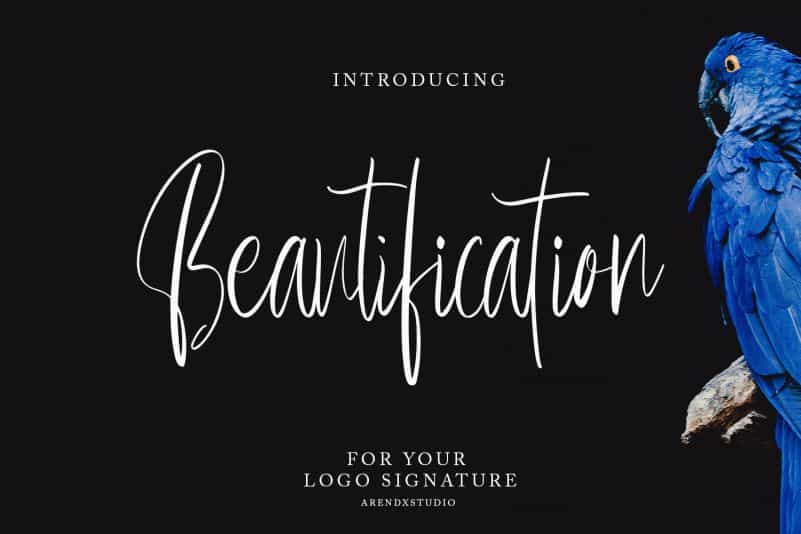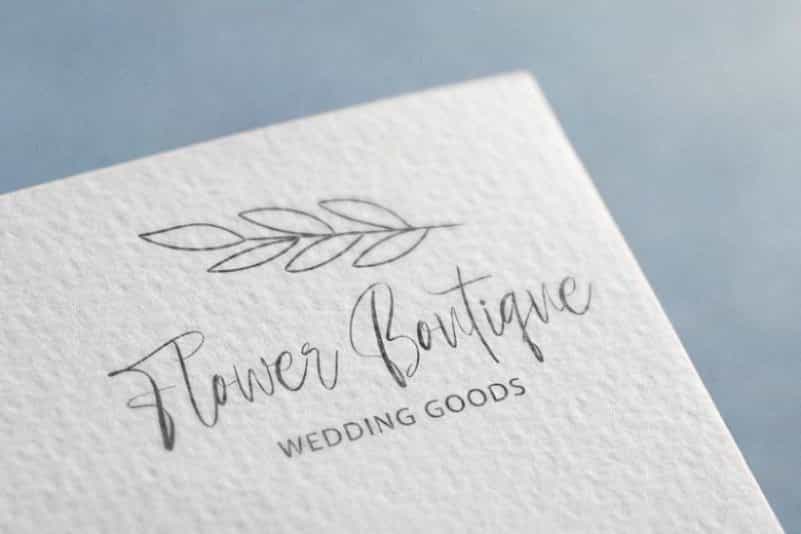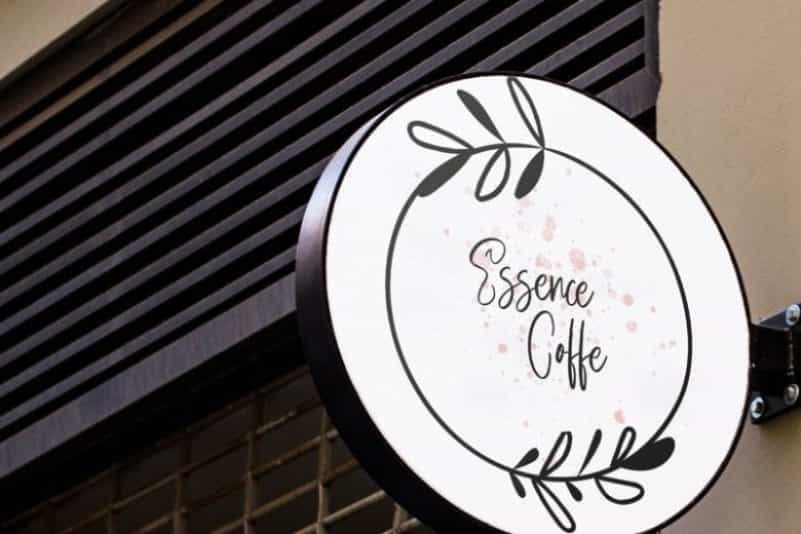
Introducing Beautification Font – A Classic Stylist font that can be used for high impact headlines. Each of these letters has been crafted creatively and perfectly playful, new font pair. This font is a beautiful script that you can use for your set of invitations, Brand, blog posts, and more.